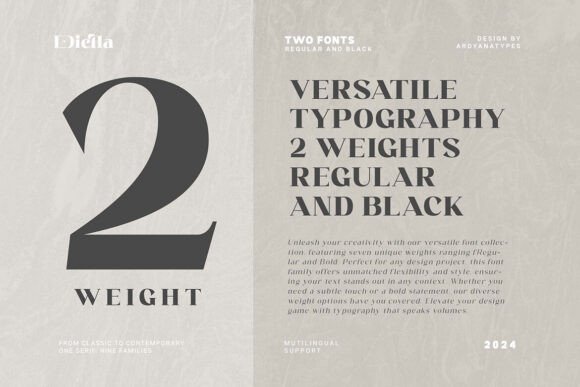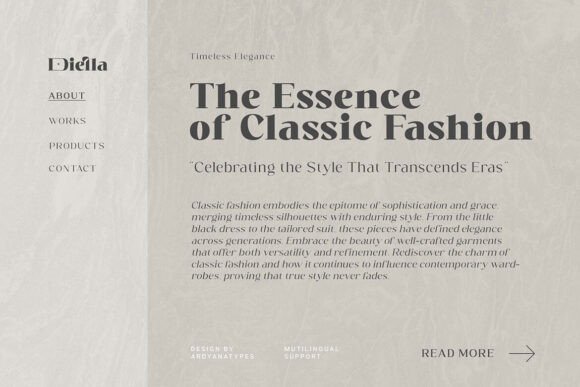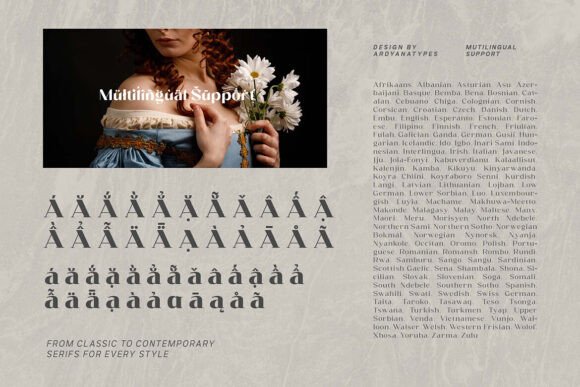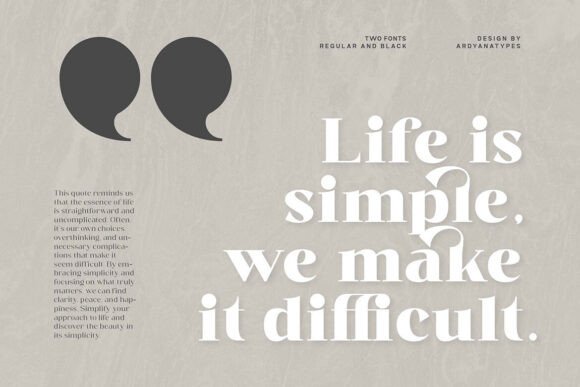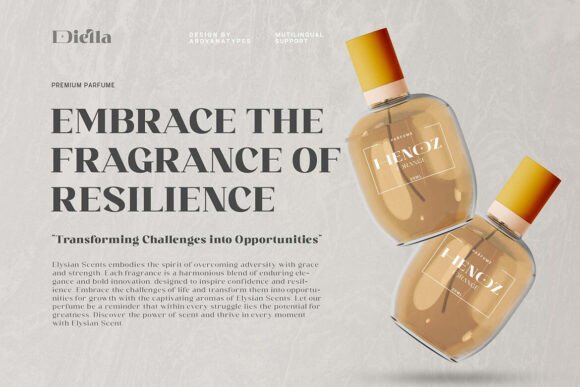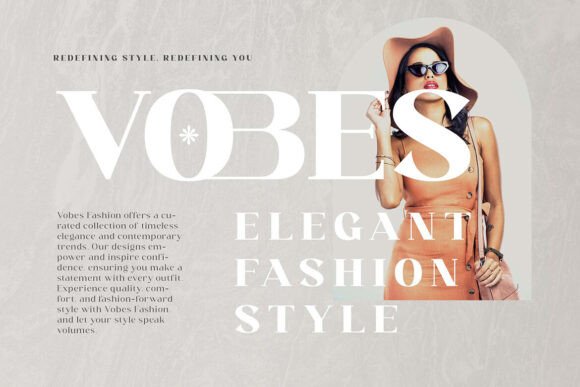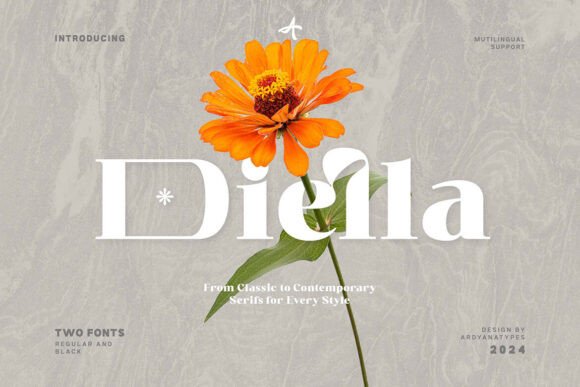
Introducing Diella Font: The Perfect Blend of Classic Elegance and Modern Sophistication
In the world of typography, fonts play a crucial role in conveying the tone and personality of a brand, product, or creative project. With the ever-growing demand for unique and versatile fonts, designers and crafters are constantly on the lookout for typefaces that can elevate their work. This is where Diella Font comes in – a modern serif font designed with meticulous attention to detail, offering flexibility and style for a wide range of design needs.
What is Diella Font?
Diella is a modern serif font that seamlessly blends classic elegance with a contemporary look. Its design is characterized by perfect details, making it an excellent choice for various creative projects, including branding, editorial projects, logos, invitations, posters, and more. The font’s versatility and aesthetic appeal make it a valuable addition to any designer’s toolkit.
Key Features of Diella Font
- Modern Serif Design: Diella boasts a modern serif design that sets it apart from traditional serif fonts. Its clean lines, subtle curves, and balanced proportions create a sophisticated look that’s perfect for designs that require a touch of elegance.
- Perfect Details: The font’s design is characterized by meticulous attention to detail, ensuring that every aspect of the typeface is refined and polished.
- Flexibility: Diella is designed to be versatile, making it suitable for a wide range of design applications, from digital projects to print materials.
- Classic Elegance with a Contemporary Twist: The font’s classic serif design is infused with modern elements, creating a unique and stylish look that’s both timeless and trendy.
Use Cases for Diella Font
Diella’s versatility makes it an excellent choice for various design projects, including:
- Branding: Create a lasting impression with Diella’s elegant and sophisticated design, perfect for logos, business cards, and brand guidelines.
- Editorial Projects: Use Diella to add a touch of elegance to magazines, newspapers, and online publications.
- Logos and Icons: Create memorable logos and icons with Diella’s clean lines and modern design.
- Invitations and Stationery: Add a touch of sophistication to invitations, greeting cards, and stationery with Diella’s classic yet modern design.
- Posters and Flyers: Use Diella to create eye-catching posters and flyers that demand attention.
Why Choose Diella Font?
With so many fonts available, why choose Diella? Here are just a few reasons:
- Unique Design: Diella’s modern serif design sets it apart from other fonts, ensuring your designs stand out from the crowd.
- High-Quality Design: The font’s meticulous design ensures that every aspect of the typeface is refined and polished.
- Flexibility: Diella is designed to be versatile, making it suitable for a wide range of design applications.
- Ease of Use: The font is easy to read and works well in various sizes, making it perfect for both digital and print projects.
Diella Font is an exceptional modern serif font that offers a perfect blend of classic elegance and contemporary sophistication. Its versatility, attention to detail, and unique design make it an excellent choice for designers and crafters looking to elevate their creative projects. Whether you’re working on branding, editorial projects, logos, invitations, posters, or other creative works, Diella Font is sure to impress.